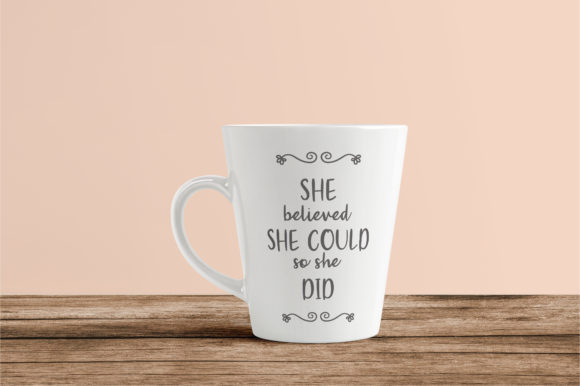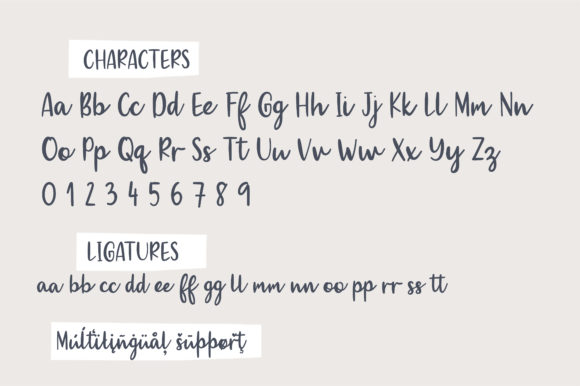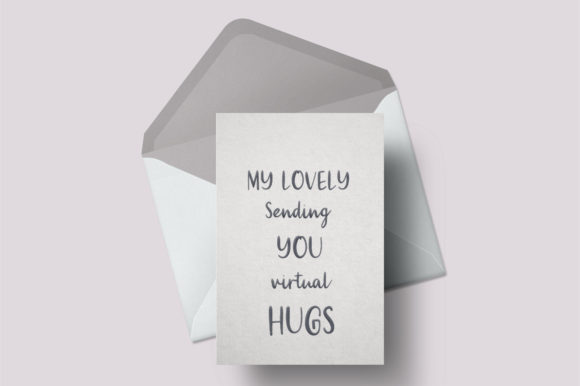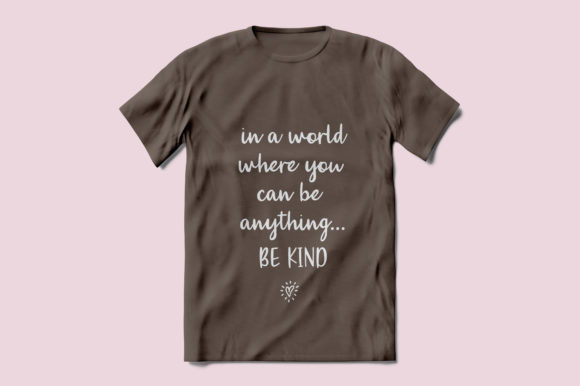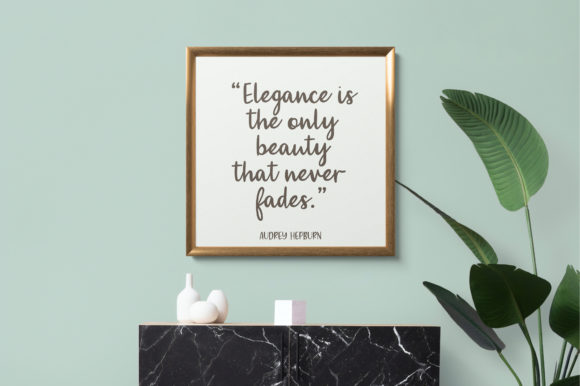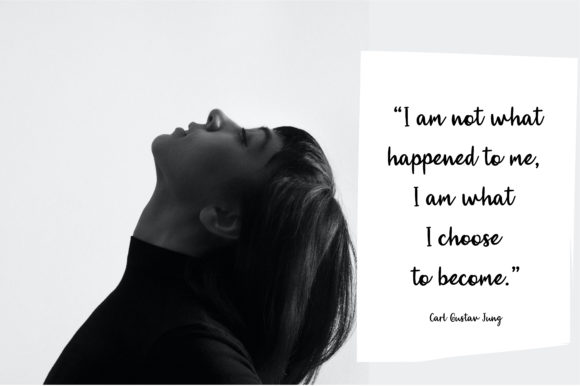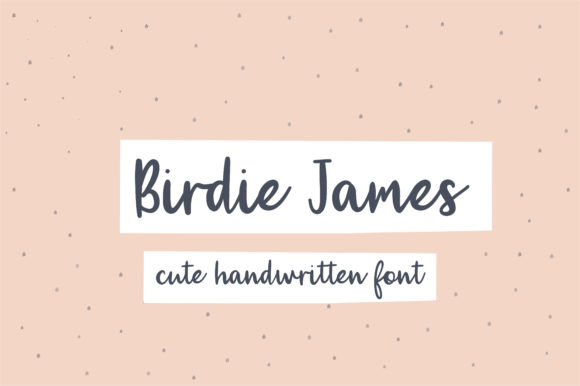
The Birdie James Font: A Friendly and Versatile Companion for Your Creative Projects
A Personal Review: What I Love About Birdie James
Birdie James is a cute and casual handwritten font that exudes an incredibly friendly feel. Here are some aspects that I absolutely love about this font:
• ✨ Unique Character: Birdie James has a distinct personality that sets it apart from other fonts. Its handwritten feel makes it perfect for projects that require a personal touch.
• ✅ Versatility: This font is incredibly versatile and can be used for a wide range of projects, from Instagram posts to calligraphy scripts for DIY projects.
• 💕 Emotional Connection: Birdie James has a way of evoking emotions and creating a connection with the reader. It’s perfect for projects that require a touch of warmth and personality.
While Birdie James is an amazing font, there are a few quirks to be aware of:
• 🤔 Limited Formality: Birdie James is a casual font, and it may not be suitable for projects that require a high level of formality.
• ⚠️ Glyph Limitations: While Birdie James has a wide range of glyphs, it may not have every special character or symbol you need.
Exploring OpenType Features, Glyphs, and Stylistic Alternates
Birdie James offers a range of OpenType features, glyphs, and stylistic alternates that can enhance your design. Here are a few tips on how to make the most of these features:
• OpenType Features: Birdie James offers a range of OpenType features, including ligatures, stylistic alternates, and swashes. Experiment with these features to add a touch of elegance to your design.
• Glyphs: Birdie James has a wide range of glyphs, including special characters, symbols, and ornaments. Use these glyphs to add visual interest to your design.
• Stylistic Alternates: Birdie James offers a range of stylistic alternates that can help you create a unique look. Experiment with different alternates to find the one that works best for your project.
Q: What is Birdie James font?
A: Birdie James is a cute and casual handwritten font with an incredibly friendly feel.
Q: What is Birdie James font used for?
A: Birdie James is perfect for projects that require a personal touch, such as DIY crafts, Instagram posts, and calligraphy scripts.